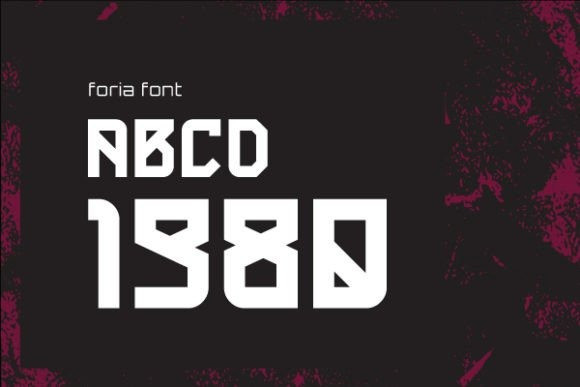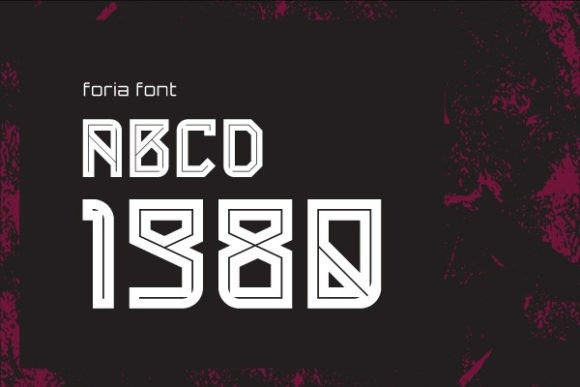
Foria Font
Foria Font is a cool and modern all-caps display font with a subtle Gothic flair. No matter the topic, this font will be an incredible asset to your fonts’ library, as it has the potential to elevate any creation.